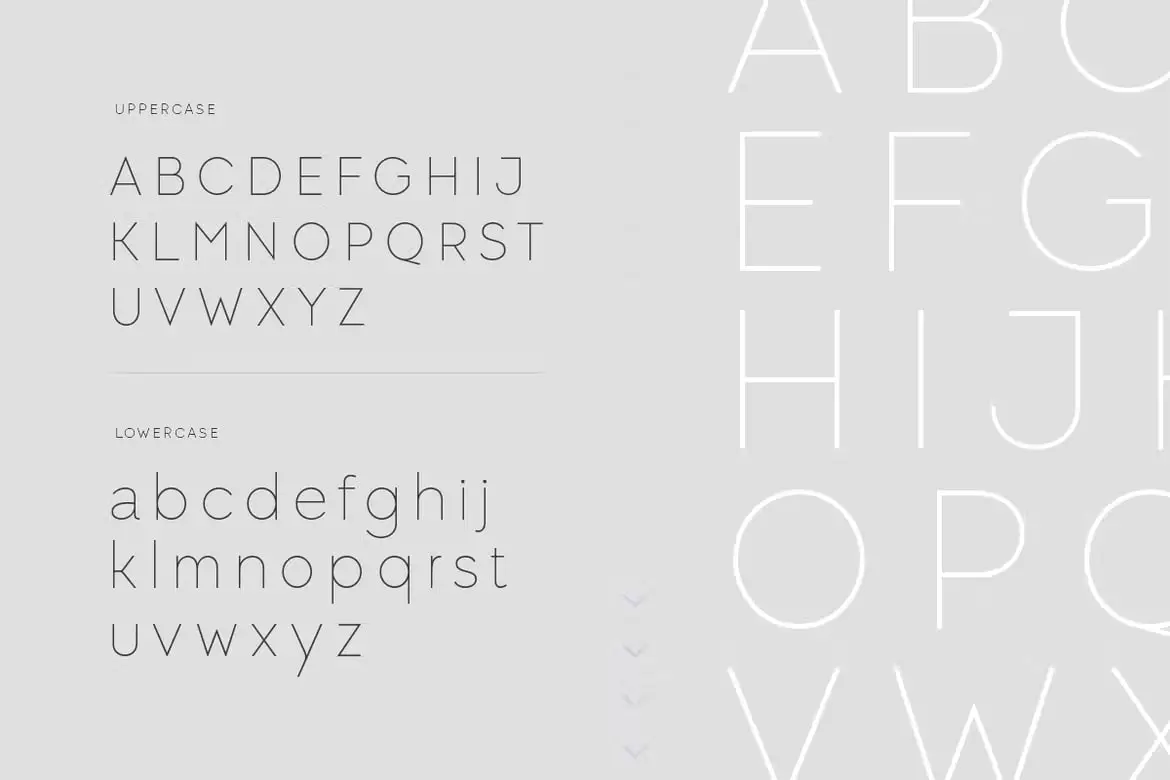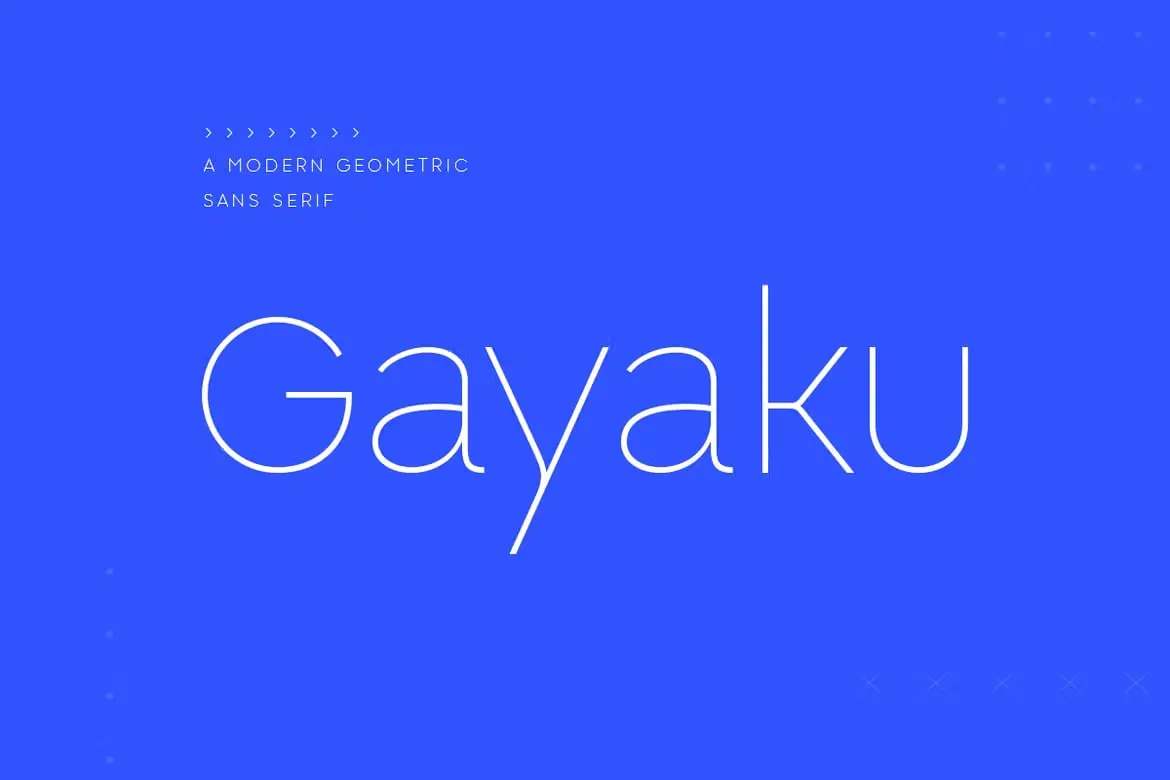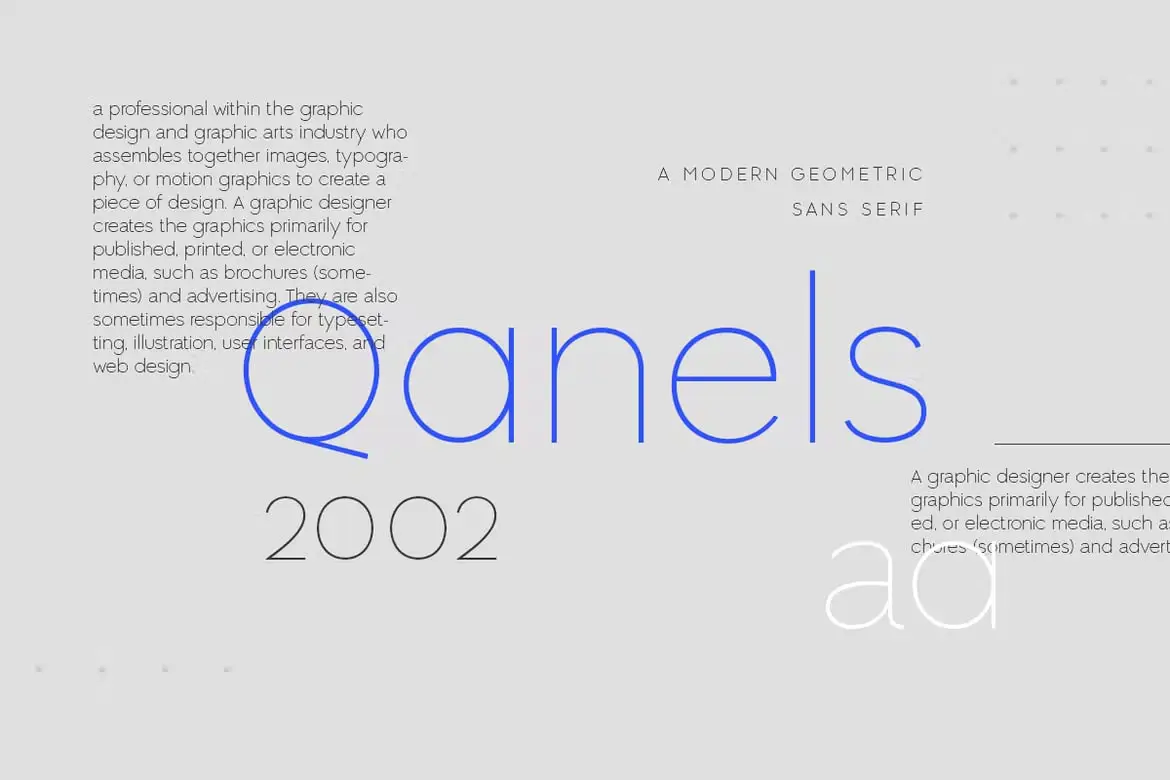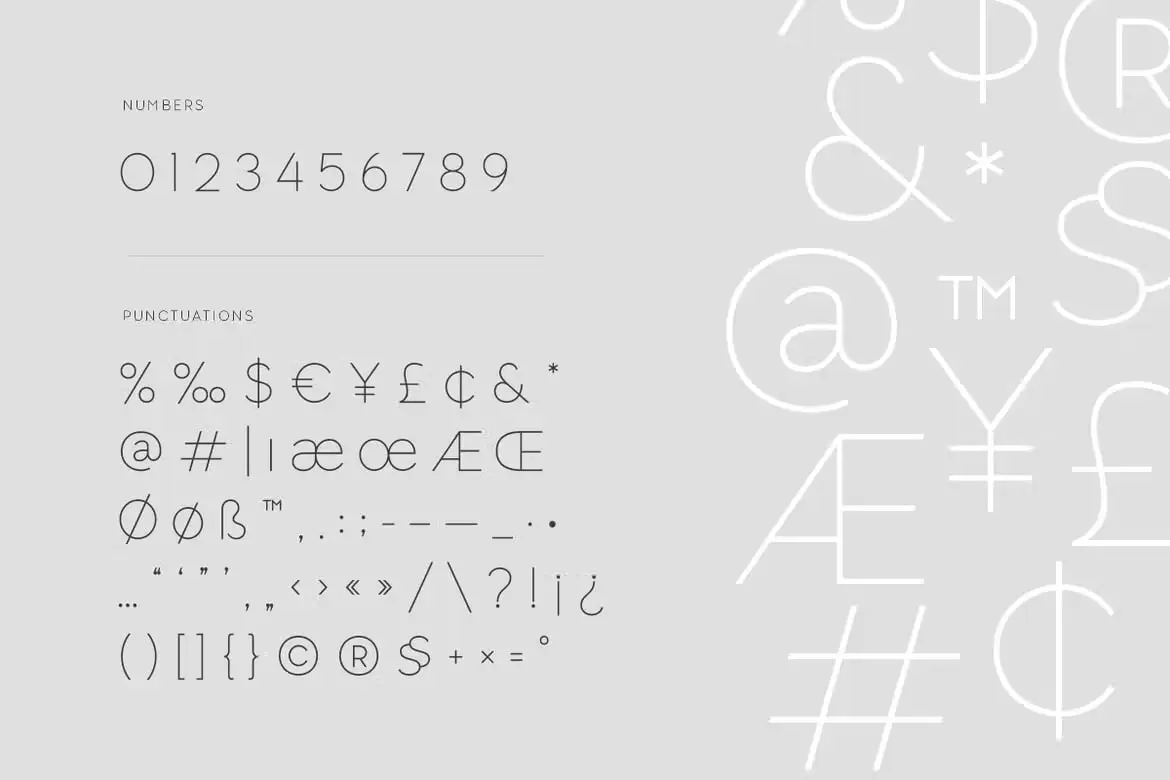
Gayaku-Modern Sans Serif Font
Introducing Gayaku, a modern sans serif font that beautifully balances elegance and readability. This versatile typeface is perfect for a wide range of applications, from branding and logos to web and print design.
• Multiple weights for diverse typographic needs
• Uppercase and lowercase letters, numerals, and punctuation
• Clean lines and geometric shapes
• Ideal for branding projects, including logos and business cards
• Great for web design, ensuring legibility across devices
• Perfect for print materials like brochures, flyers, and posters